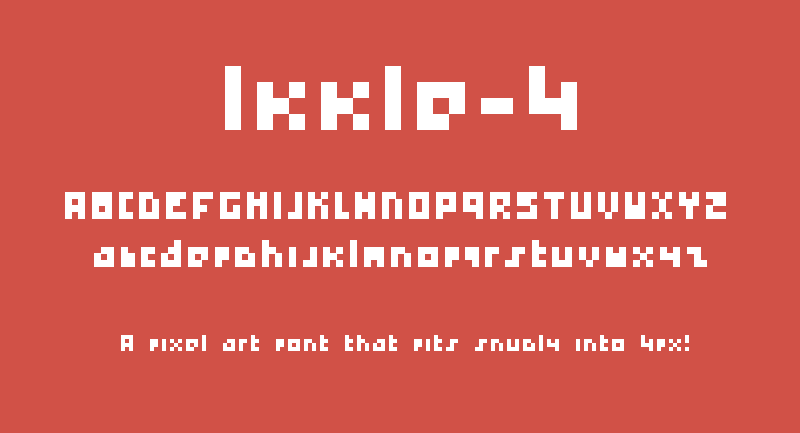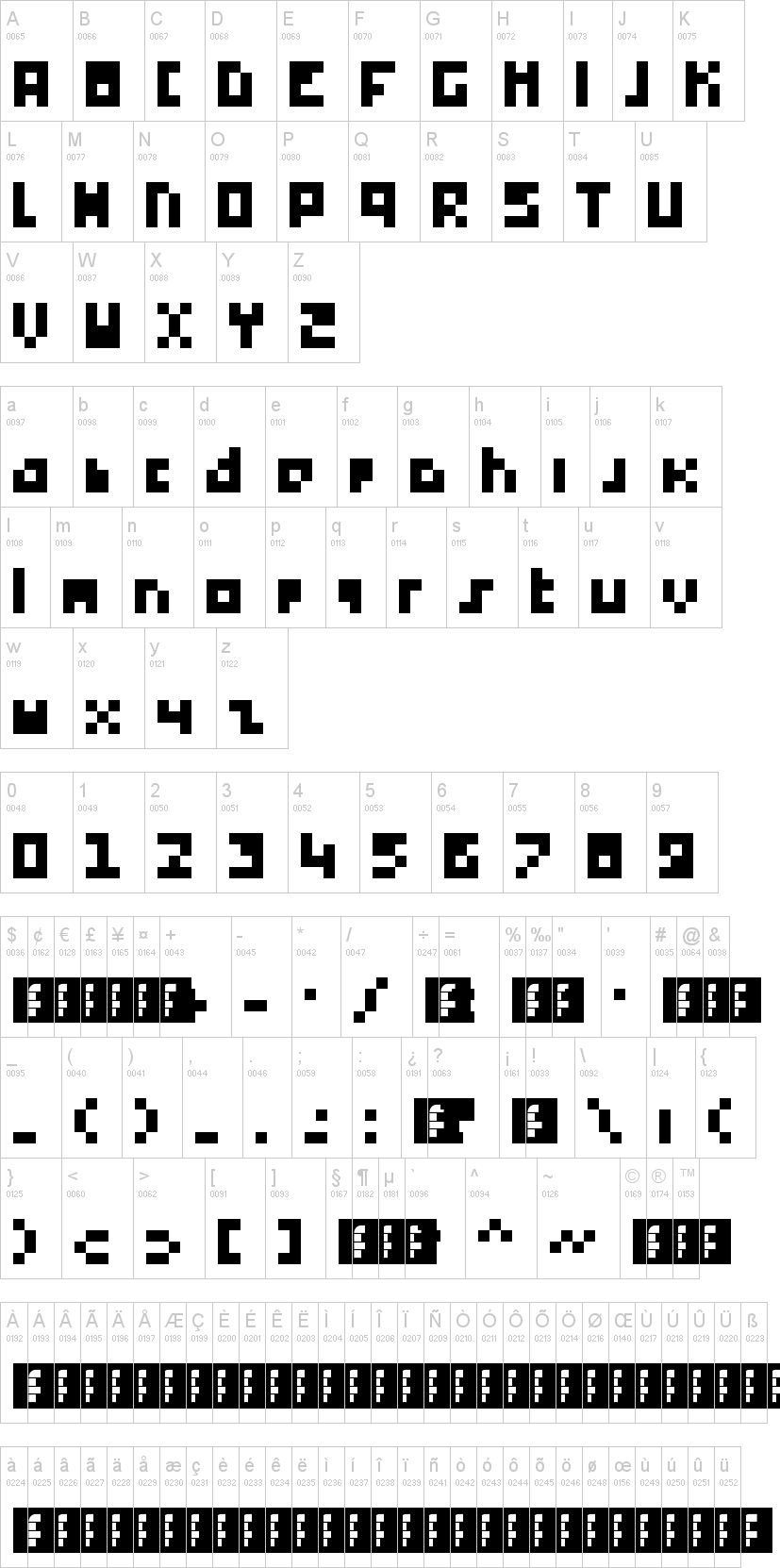
Note of the authorEvolution of the Ikkle font, Ikkle-4 is a 4px limited font designed primarily for pixel art games that want to make use of very limited space.